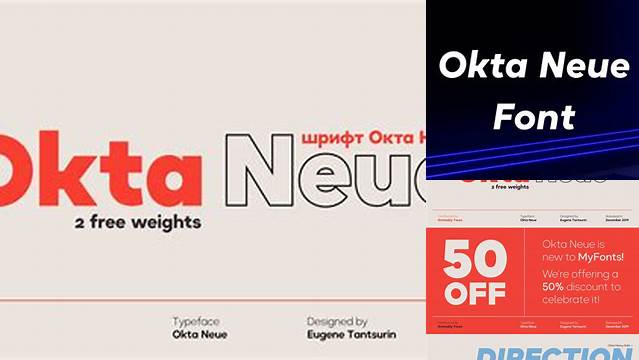
Hey everyone! So, you're probably here because you're looking to get your hands on the Okta Neue font, and maybe you're wondering if you can snag it for free. Well, you've come to the right place! We're going to dive deep into the world of Okta Neue, exploring where you can download it, why it’s such a killer font for your design projects, and how to use it like a pro. Whether you're a seasoned designer or just starting out, understanding cool fonts like Okta Neue can seriously level up your game. So, let’s get into it!
Understanding the Okta Neue Font: What Makes It Stand Out?
Alright, guys, let's talk about why Okta Neue is a font that keeps popping up in design circles. This isn't just any old typeface; it’s got a distinct personality that designers absolutely love. Think clean lines, a modern aesthetic, and a versatility that makes it suitable for a huge range of applications. Whether you're branding a new startup, designing a sleek website, or creating eye-catching social media graphics, Okta Neue can handle it. It’s a sans-serif font, which means it doesn't have those little decorative strokes (serifs) at the ends of the letters. This gives it a really contemporary and minimalist feel. But don't let that simplicity fool you; Okta Neue packs a punch when it comes to readability and impact. It's often described as geometric and humanist, blending the precision of geometric shapes with the warmth and readability of humanist forms. This unique combination makes it super comfortable to read, even in smaller sizes or for longer blocks of text. Plus, it usually comes in a variety of weights – from thin and delicate to bold and commanding – giving you the flexibility to create different moods and hierarchies in your designs. Imagine using the lighter weights for elegant headings and the bolder ones for strong calls to action; it’s all about that control, you know?
What really sets Okta Neue apart is its attention to detail. The letterforms are carefully crafted, with balanced proportions and a consistent rhythm. This means that even when you're using it for headlines that are meant to grab attention, or for body text that needs to be easily absorbed, it always looks professional and polished. It avoids the pitfalls of some other sans-serifs that can sometimes feel a bit too cold or sterile. Okta Neue manages to strike that perfect balance between modern sophistication and approachability. It’s the kind of font that doesn’t scream for attention but rather commands it through its sheer quality and thoughtful design. It’s great for everything from digital interfaces, where clarity is king, to print materials like brochures and posters, where you want a sophisticated yet accessible look. Designers often reach for it when they want to convey a sense of trustworthiness, innovation, and modern style. It’s like the trusty sidekick for any design project that aims to be both visually appealing and highly functional. So, yeah, it’s pretty awesome, and understanding its core design principles helps you appreciate why it’s such a popular choice among creative professionals. We’re talking about a font that doesn’t just look good; it works really well too, making your life as a designer a whole lot easier.